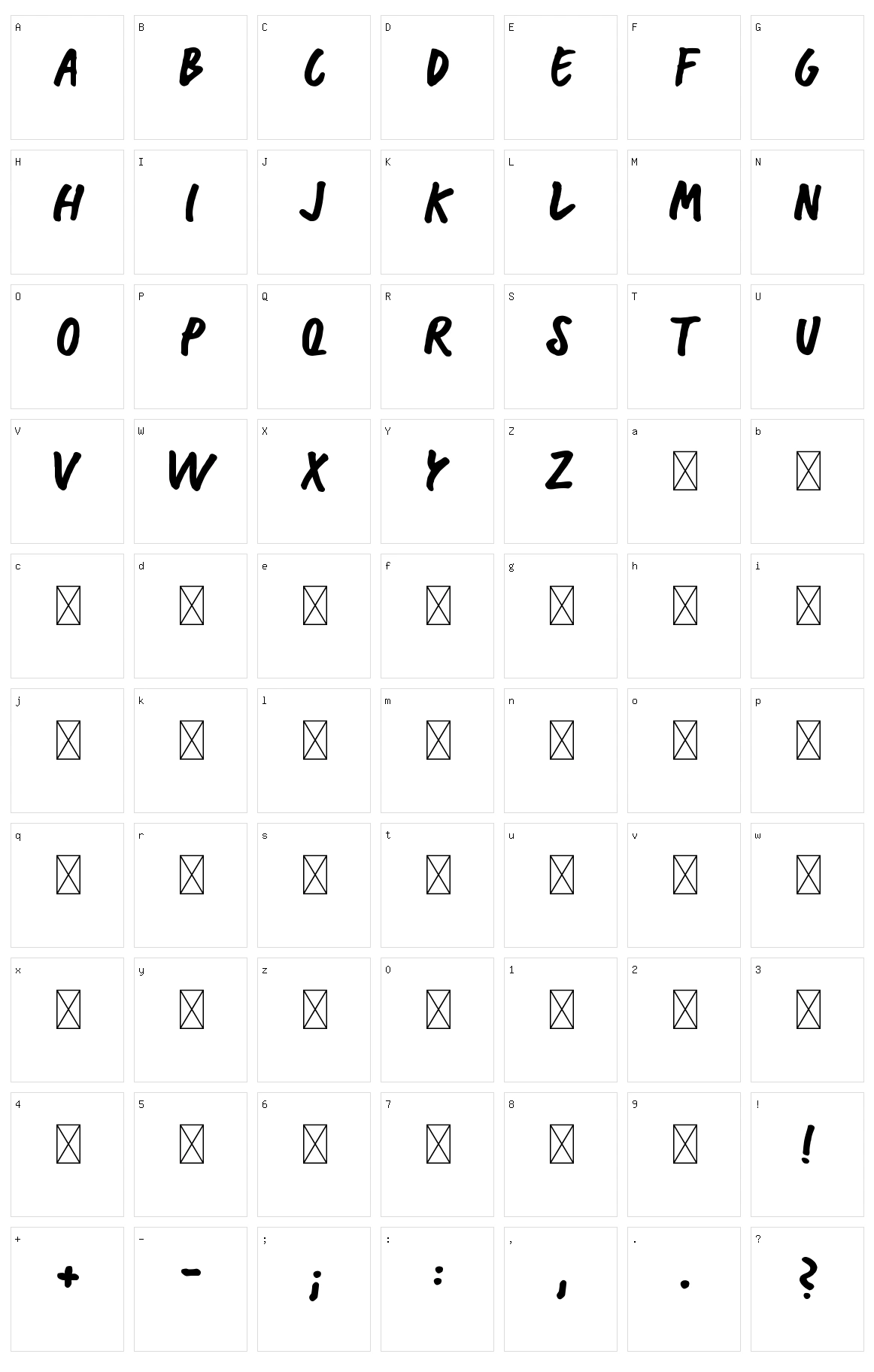
The free font Lisa is carefully designed by Union Sozialer Einrichtungen gGmbH, showcasing a thoughtful balance of creativity and usability and falls under the Script font style. When you download the ZIP file, it contains only 7.95 KB of font files, making it lightweight and quick to download. Please review the license details below to understand permitted usage and distribution rights. If license information is not available, we recommend using this font for personal projects only or contacting the author directly for commercial usage permissions.